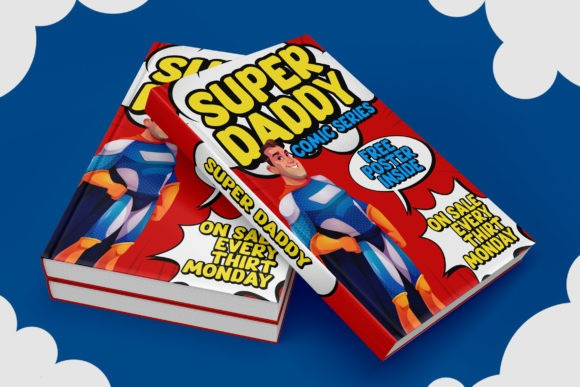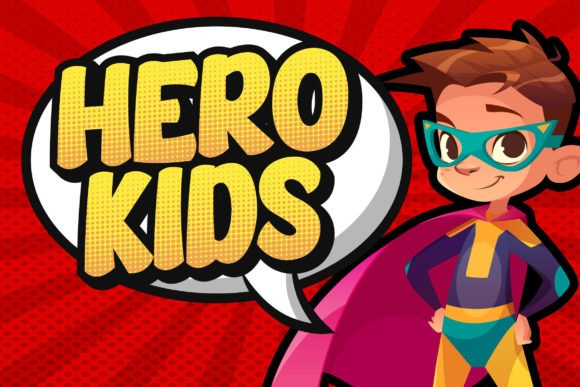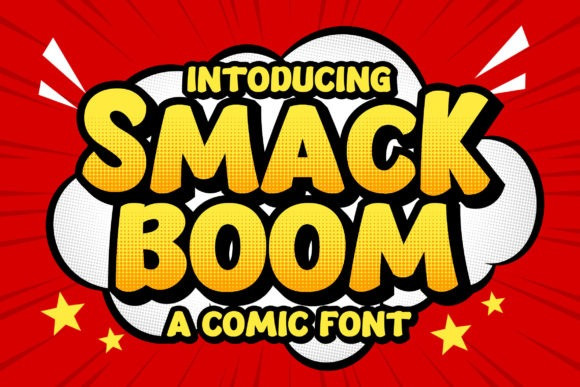
Smack Boom Font
Smack Boom Display Font is a display font inspired by the playfulness of the cartoon typography, and it is guaranteed to make your designs look more attractive and jolly. It is very suitable for book covers, children’s books, comics, posters, packaging, merchandise, logotypes, and many more. Do you want to create something that stands out and inspires creativity, imagination, and endless fun? Look no further, this amazing display font is the right choice for you!